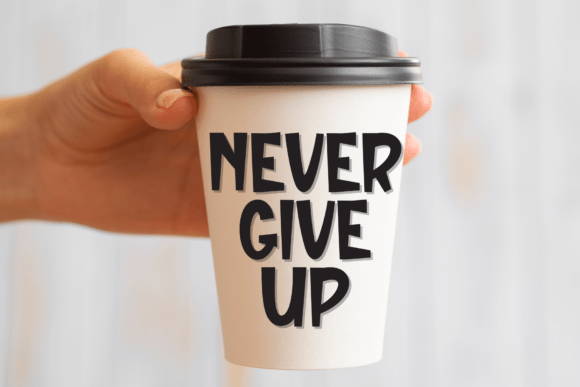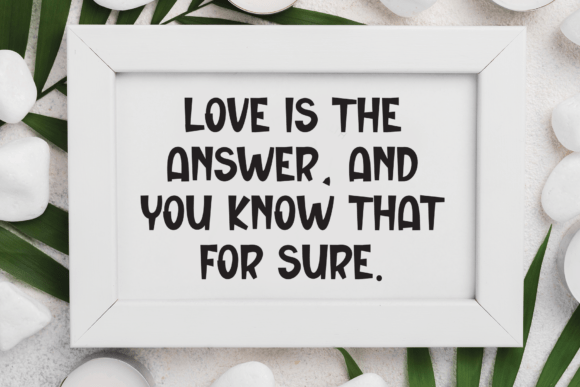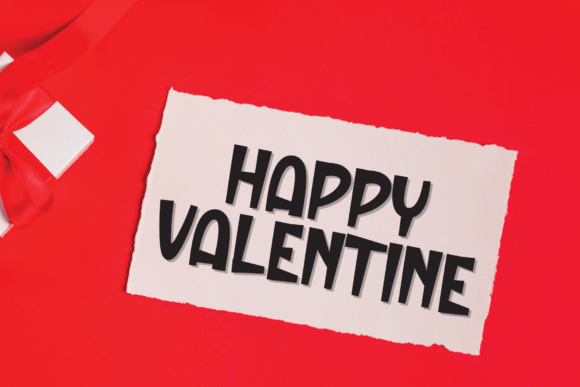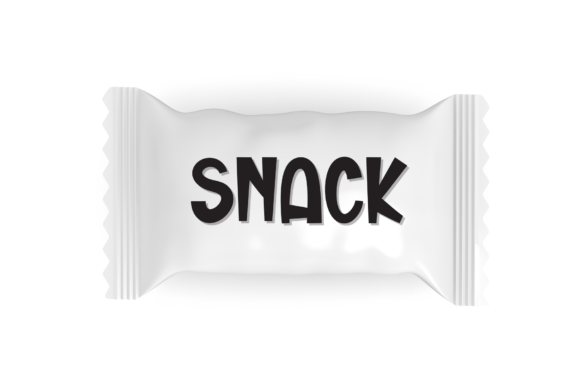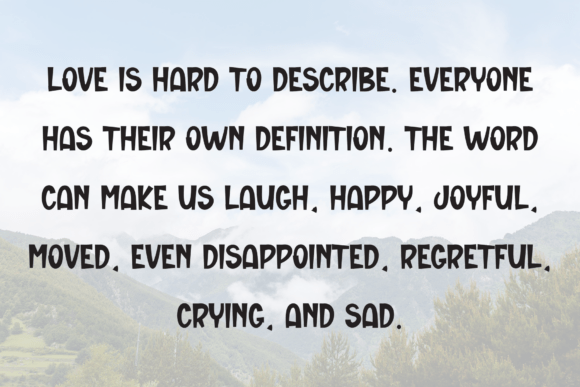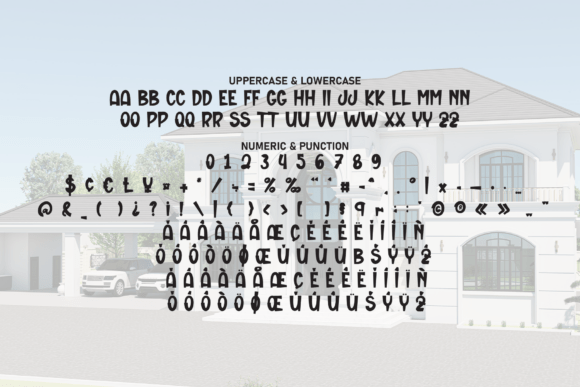
The Big Home Font: A Charming Handwritten Display Font
Have you ever been in the middle of a design project, and suddenly, you’re stuck on finding the perfect font? I recall a particularly frustrating experience while working on a wedding invitation design. My client wanted a font that was both playful and elegant, but I just couldn’t seem to find the right fit. That’s when I stumbled upon the Big Home Font, and it completely transformed my design. In this article, I’ll share my experience with this delightful font, its features, and how to make the most of it in your designs.
- ✅ The Big Home Font strikes the perfect balance between sweet and playful, making it ideal for designs that require a personal touch.
- ✅ Its handwritten display style pulsates with life, adding a dash of fun to any composition.
- ✅ The font is incredibly versatile and can be used for wedding invitations, cards, or any design that requires a touch of warmth and joy.
- ⚠️ The font’s playful nature might not make it the best fit for very formal or corporate designs.
- ⚠️ Some users might find the font’s digital handwriting style slightly inconsistent, but this adds to its charm.
The Story Behind Big Home Font
The Big Home Font was designed with the intention of capturing the warmth and joy of handwritten communication. Its creator aimed to craft a font that would bring a personal touch to digital designs. With its delightful character and playful style, Big Home Font has become a favorite among designers and crafters.
Q: What type of designs is Big Home Font best suited for?
A: Big Home Font is perfect for designs that require a personal touch, such as wedding invitations, cards, and other creative projects.
Q: Is Big Home Font suitable for body text?
A: While Big Home Font is primarily designed for display purposes, it can be used for short paragraphs of body text. However, its playful nature might make it less suitable for lengthy texts.